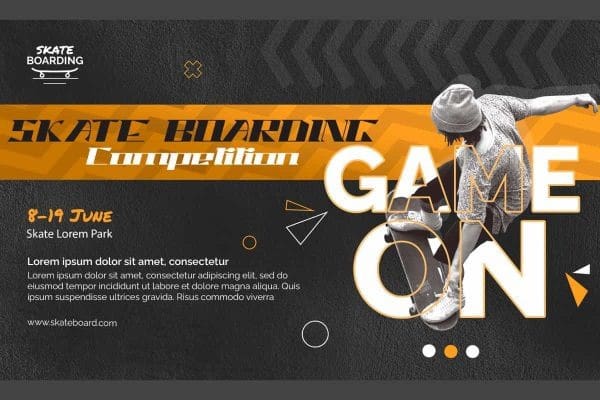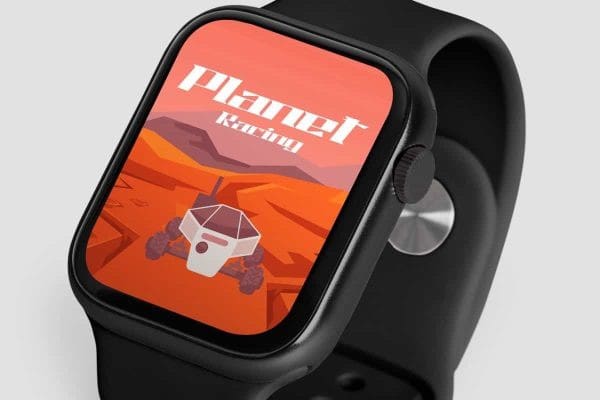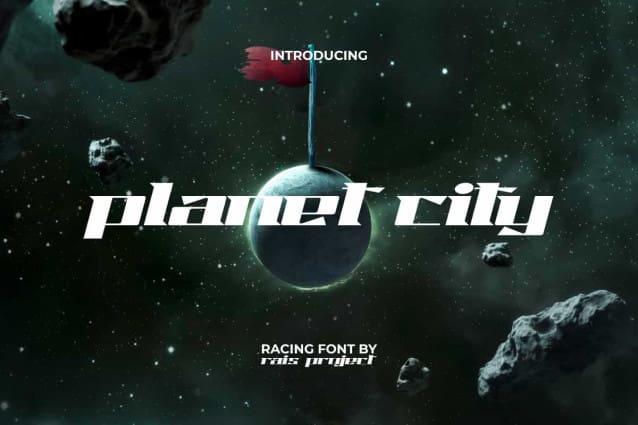
Planet City Font
Planet City Font is an impressive racing display font with a modern look. This font consists of thick and thin lines that create interesting shapes. It will be good for any designs, such as stationery, advertisement, brand image, cover, custom design, invitation, label, marketing material, menu, poster, product packaging, quotes, website page, and more!
Planet City Font includes a full set of ALL CAPS for Uppercase and Lowercase Letters, Numerals, and large range of Punctuation. This cool font with a racing vibe will be suitable for various industries, such as sports, game, movie, automotive, café, event or festival, fashion, printing, publishing, etc.